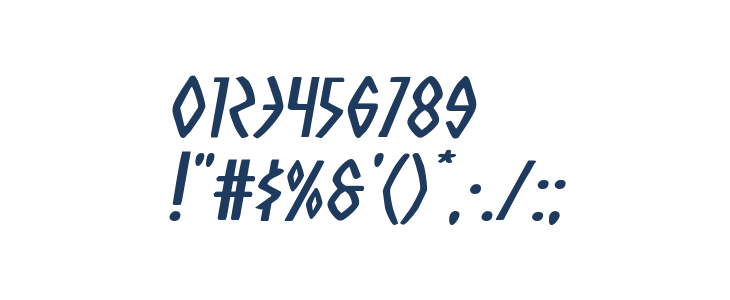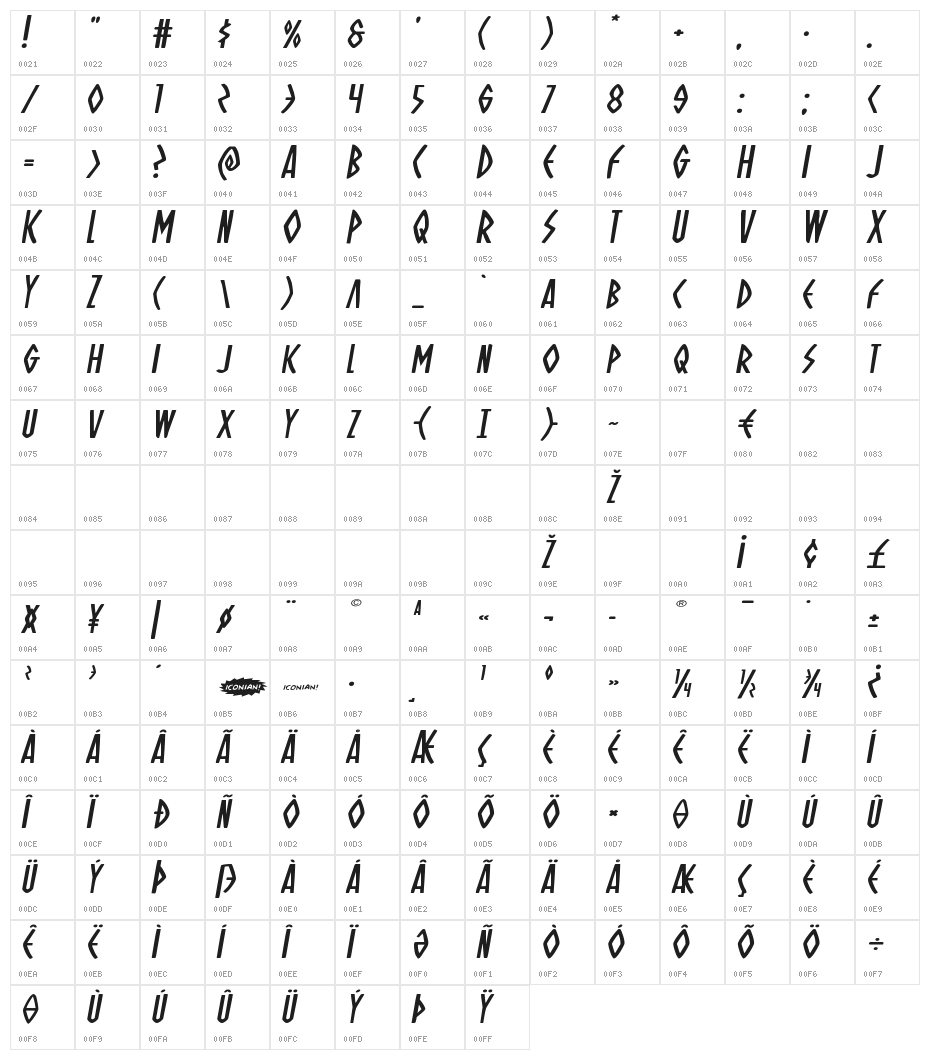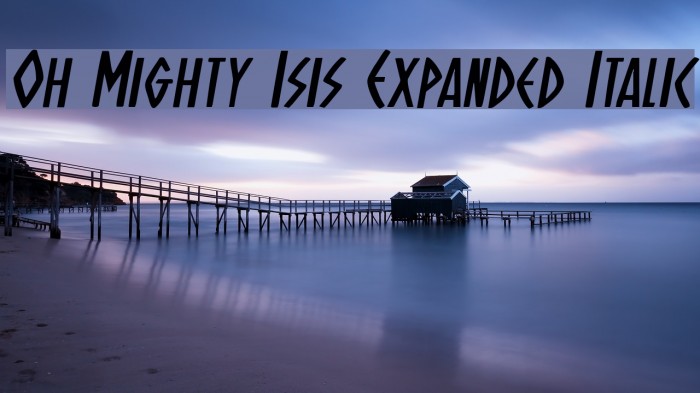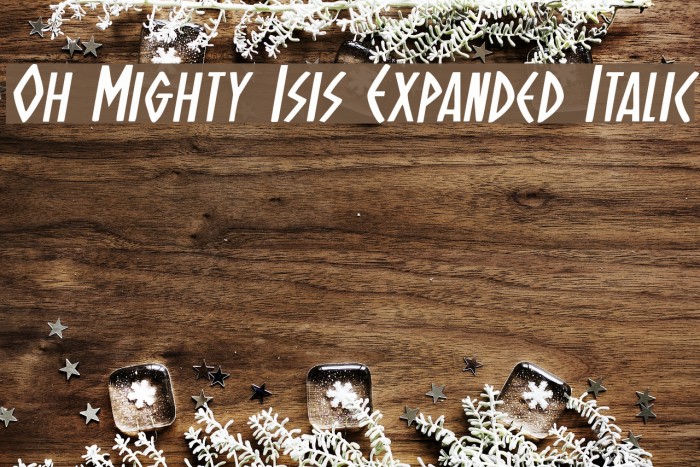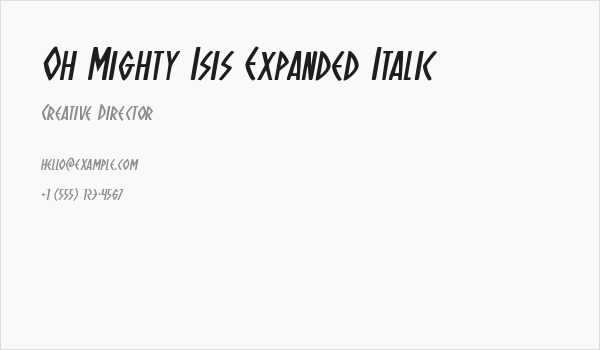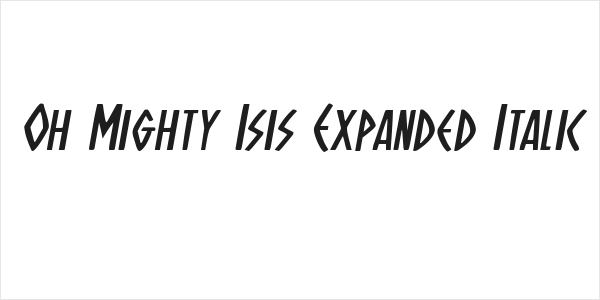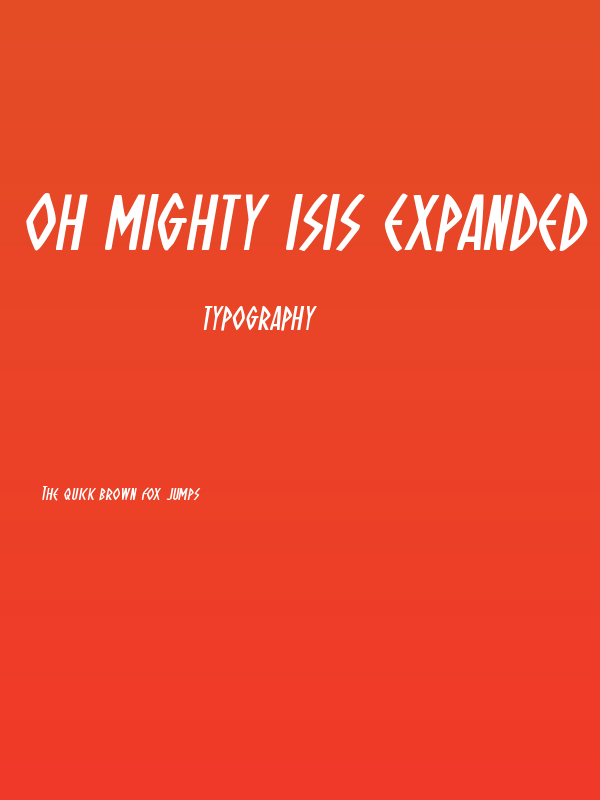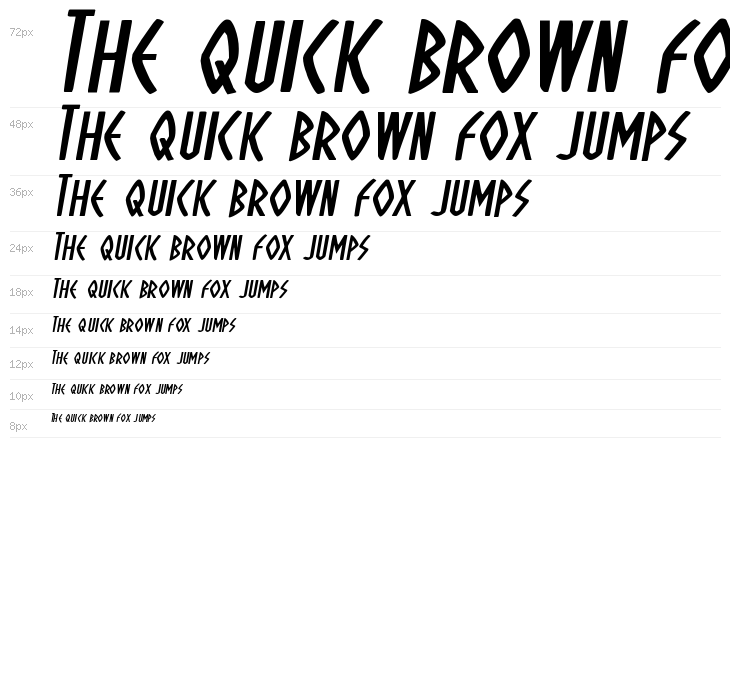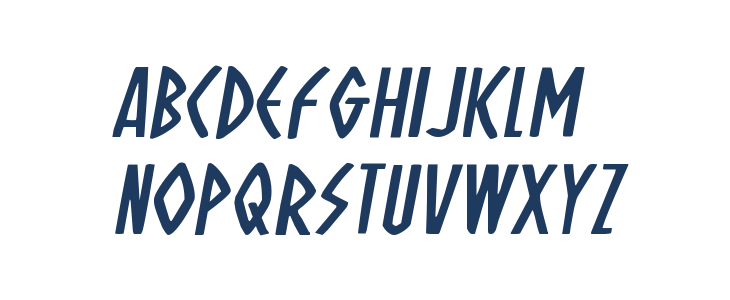
Oh Mighty Isis Expanded Italic Font
Oh Mighty Isis Expanded Italic Description
This font features a bold and dynamic style with an expanded and italicized form. The characters are sharply angled, giving a sense of movement and energy. The uppercase and lowercase letters maintain a consistent slant, enhancing the italic effect. The numbers and special characters follow the same stylistic approach, ensuring uniformity across all glyphs. The strokes are thick, contributing to a high contrast between the character outlines and the inner spaces. This design is visually striking and commands attention, making it suitable for impactful and bold statements.
| Proposed Projects | Ideal for posters, headlines, branding, and any project requiring a bold and dynamic visual impact. |